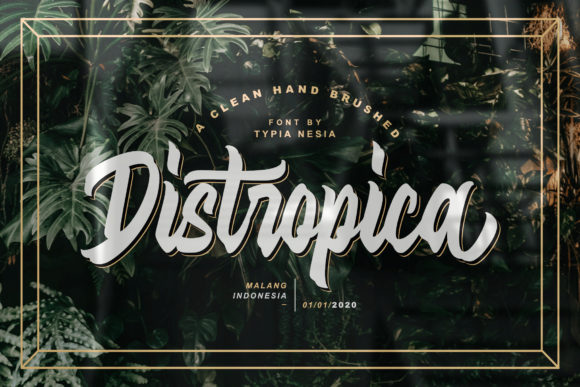
Unleash Your Creativity with Distropica Font: A Modern and Enchanting Typeface
Are you a designer, crafty person, or simply someone who loves to create visually stunning content? Look no further! Introducing Distropica Font, a modern and enchanting typeface that is perfect for creating logos, beautiful stationery, stylish social media posts, and much more. In this article, we’ll dive into the world of Distropica Font and explore its features, benefits, and uses.
What is Distropica Font?
Distropica Font is a unique and captivating typeface that combines modernity with a touch of elegance. Its distinctive design makes it stand out from other fonts, allowing you to add a personal touch to your creations. Whether you’re working on a logo, invitation, or social media post, Distropica Font is sure to make it look stunning.
Key Features of Distropica Font
- Modern and Enchanting Design: Distropica Font boasts a modern and enchanting design that will instantly elevate your creations.
- Versatile: This font is perfect for a wide range of projects, including logos, stationery, social media posts, and more.
- Easy to Read: Despite its unique design, Distropica Font remains easy to read, making it perfect for body text and headlines.
- High-Quality: Distropica Font is a high-quality typeface, ensuring that your creations look professional and polished.
Benefits of Using Distropica Font
So, why should you choose Distropica Font for your next project? Here are just a few benefits of using this amazing typeface:
- Stand Out from the Crowd: With Distropica Font, you can create unique and eye-catching designs that will set you apart from the competition.
- Save Time: Thanks to its versatility and ease of use, Distropica Font can save you time and effort when working on your projects.
- Enhance Your Brand: If you’re a business owner or entrepreneur, Distropica Font can help you create a strong brand identity that reflects your values and personality.
Uses of Distropica Font
Distropica Font is incredibly versatile, making it perfect for a wide range of projects and applications. Here are just a few ideas to get you started:
- Logo Design: Create a stunning logo for your business or brand with Distropica Font.
- Stationery: Design beautiful stationery, including business cards, letterheads, and more.
- Social Media Posts: Create stylish and engaging social media posts that will grab the attention of your followers.
- Invitations: Design elegant and sophisticated invitations for weddings, parties, and other special events.
Tips for Using Distropica Font
To get the most out of Distropica Font, here are a few tips to keep in mind:
- Experiment with Different Sizes: Distropica Font looks great in a variety of sizes, so don’t be afraid to experiment and find the perfect size for your project.
- Pair with Other Fonts: Distropica Font pairs well with other fonts, so try combining it with a sans-serif font for added contrast.
- Use it for Headlines and Body Text: Distropica Font is easy to read, making it perfect for both headlines and body text.
In conclusion, Distropica Font is a modern and enchanting typeface that is perfect for designers, crafters, and anyone who loves to create visually stunning content. With its unique design, versatility, and ease of use, Distropica Font is sure to become a favorite in your font collection. So why wait? Download Distropica Font today and unleash your creativity!